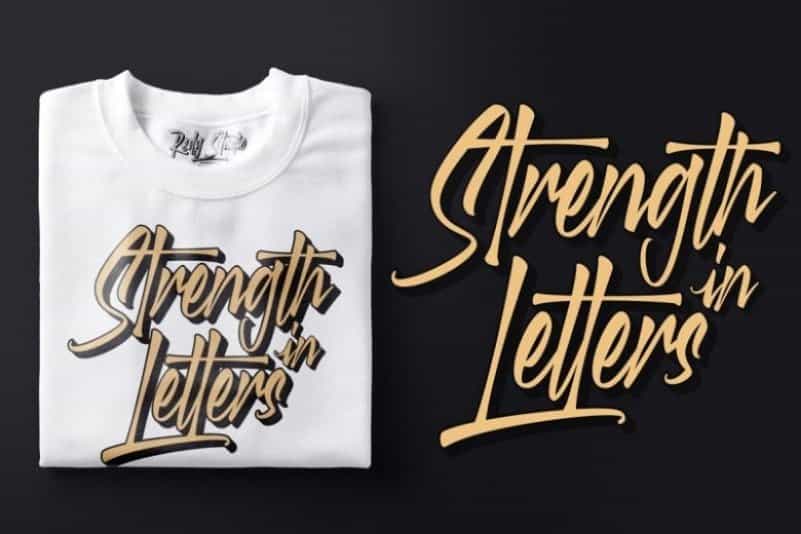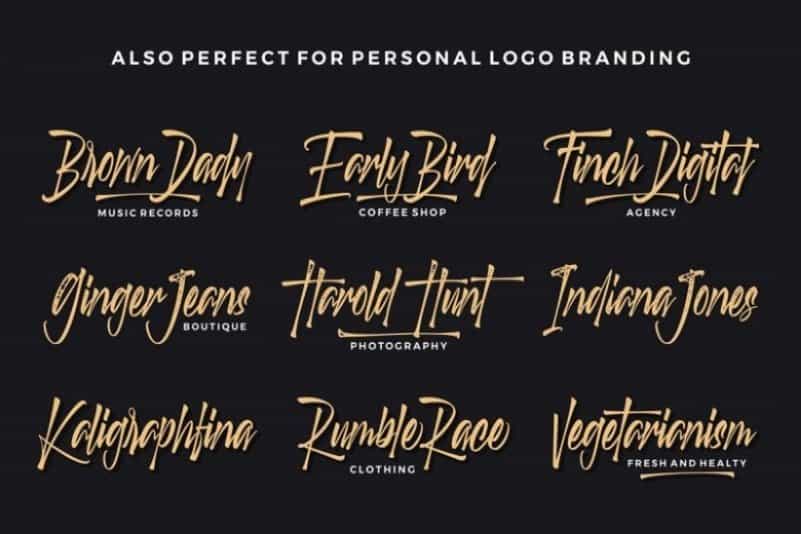
Introducing Scotland Stories Font. This font is a Modern Script type and has fast brush strokes and signature styles which make this font class apart with elegance. Scotland stories has all the uppercase and lowercase Basic Characters, the alternate for each lowercase letter listed, Numbers, Marks, Punctuation, Ligatures, and Swashes.